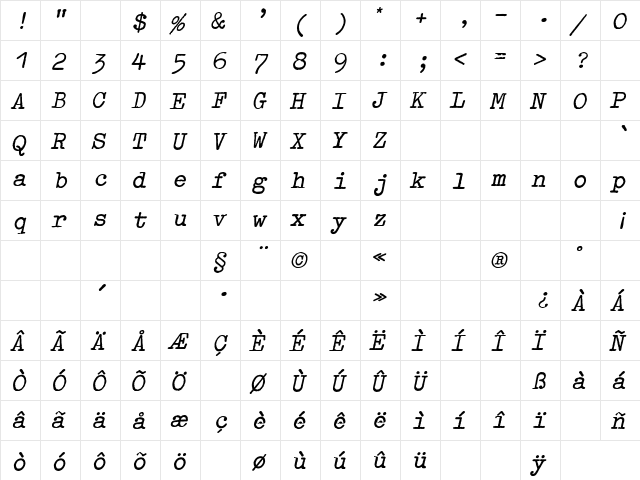
OldTypewriterExtBolObl Regular
Design Context for OldTypewriterExtBolObl Typeface
OldTypewriterExtBolObl uses fixed-width spacing throughout, giving it the structured, systematic character associated with coding environments and technical documentation.
A natural fit for code editors, technical documentation, developer-focused branding, and terminal-inspired UI.
Pro Tip: Pair OldTypewriterExtBolObl with a proportional sans for UI contexts where code-style labels and regular body copy need to coexist.